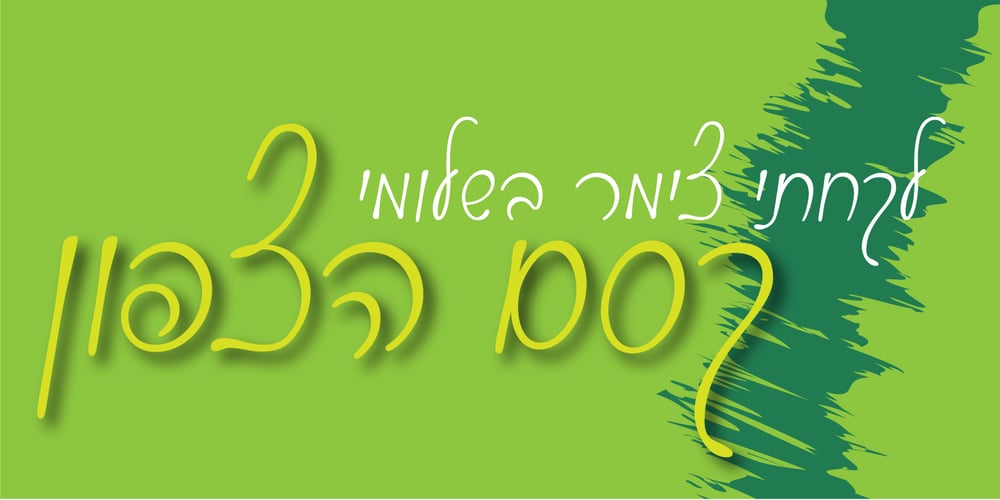
Kesem MF Font Family was designed by Zvika Rosenberg and published by Masterfont. Kesem MF contains 1 styles and family package options. This font family is a great choice when you want to effortlessly make your designs stand out with a remarkable clearly crafted handwriting.